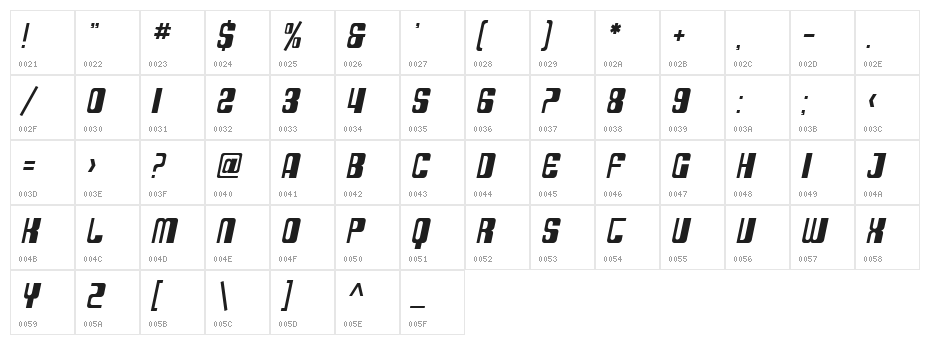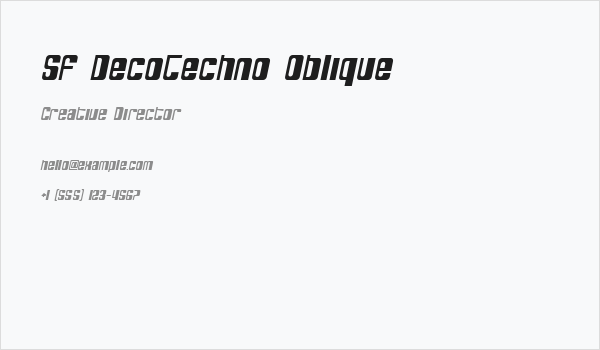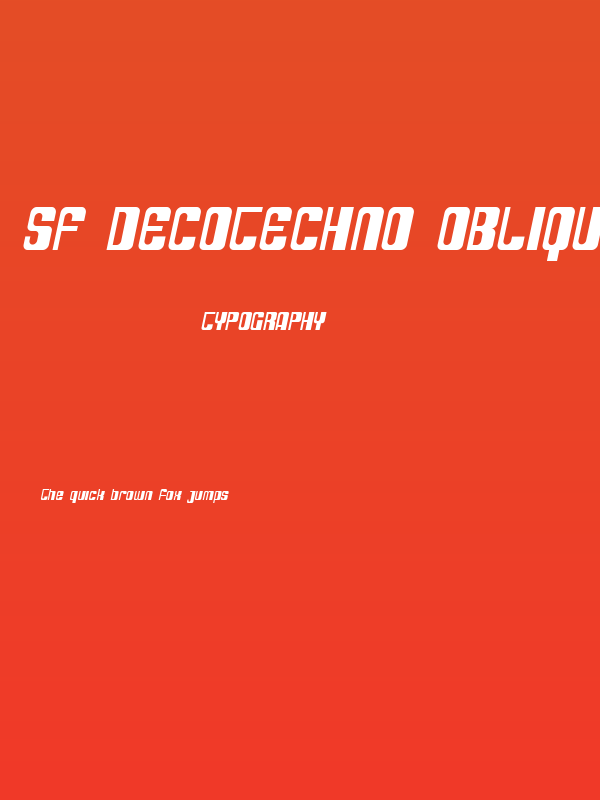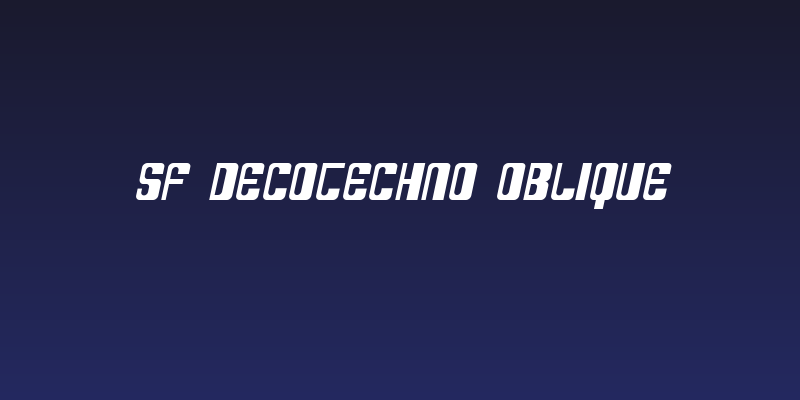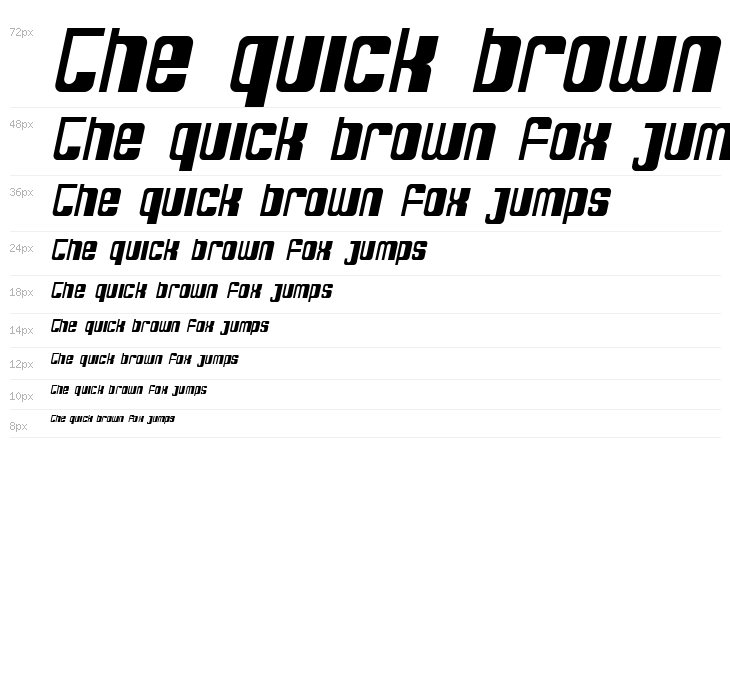
SF DecoTechno Oblique Font
SF DecoTechno Oblique Description
This font features a bold and futuristic design with a strong oblique slant, giving it a dynamic and forward-moving appearance. The characters are constructed with a geometric precision, featuring sharp angles and clean lines that convey a sense of modernity and technological advancement. The uppercase and lowercase letters maintain a consistent style, with the lowercase characters mirroring the uppercase in form and structure. The numerals are equally bold and distinct, ensuring clarity and readability. Special characters are designed to match the overall aesthetic, making them suitable for a variety of uses. The font's unique style makes it ideal for projects that require a modern and edgy look.
| Proposed Projects | Ideal for technology branding, sci-fi themed designs, video game interfaces, and modern advertising. |